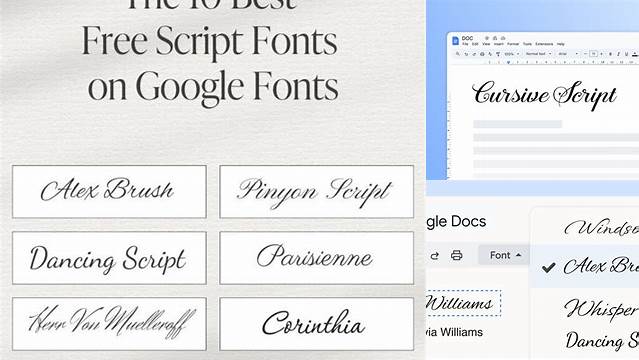
Cursive Fonts In Google Docs: The Ultimate Guide
Finding the best cursive fonts in Google Docs can be a game-changer for adding a touch of elegance, personality, or a classic handwritten feel to your documents. Whether you're working on a formal invitation, a creative writing project, or simply want to jazz up your notes, the right font can make all the difference. In this comprehensive guide, we'll dive deep into the world of Google Docs fonts, focusing on the cursive ones that stand out. We'll explore the best options, how to find and use them, and tips on choosing the perfect font for your specific needs. So, let's get started and discover the magic of cursive fonts together, shall we?
Best Cursive Fonts Google Docs: Choosing the Right Font
Choosing the best cursive fonts in Google Docs is like selecting the perfect outfit – it depends on the occasion and your personal style, doesn't it? But, what makes a cursive font “good”? A great cursive font should be readable, aesthetically pleasing, and versatile enough to fit various contexts. When selecting a cursive font, consider these factors: Readability: This is paramount. The font should be easy to read at different sizes. Some cursive fonts can be overly ornate, making them difficult to decipher. Choose fonts with clear letterforms, so your audience can easily understand the message. Aesthetics: Does the font match the tone and style of your document? A whimsical font might suit a children's story, while a more elegant script font is ideal for a wedding invitation. Versatility: Does the font have a complete set of characters and symbols? Ensure the font supports all the characters you need for your document. Weight and Style: Consider the font's weight (e.g., light, regular, bold) and style. A bold cursive font can draw attention, while a lighter one creates a more delicate feel. Experiment with different fonts to find the one that best suits your needs. Target Audience: Think about who will be reading your document. Some fonts are better suited for certain age groups or demographics. A playful font might not be appropriate for a business report. In conclusion, it's important to experiment with different cursive fonts and see how they look in your documents. After all, the best cursive font is the one that resonates with you and enhances your content. Ultimately, the perfect cursive font is the one that not only looks great but also complements the content and achieves the desired effect.
Understanding Font Properties and Terminology
To effectively navigate the world of cursive fonts, it's helpful to understand some fundamental font properties and terminology. Let's break down some key concepts: Serif vs. Sans-serif: Serif fonts (like Times New Roman) have small strokes, or “serifs,” at the ends of the letters, while sans-serif fonts (like Arial) do not. Cursive fonts often have serifs, which help letters connect and create a flowing appearance. Font Weight: This refers to the thickness of the font. Weights range from light to bold, impacting how the font appears on the page. Different weights of the same font can dramatically change the look and feel. Font Style: Font styles include italic, oblique, and regular. Italic fonts are typically slanted to the right, and cursive fonts often come in italic styles. Kerning and Tracking: Kerning is the space between individual pairs of letters, and tracking is the overall spacing between letters in a word or phrase. Adjusting these can improve readability and visual appeal. Leading (Line Spacing): This refers to the vertical distance between lines of text. Appropriate leading is crucial for readability, especially with cursive fonts, which can sometimes appear cramped. Font Families: A font family is a group of fonts that share a common design. Within a font family, you'll find various styles and weights (e.g., Arial, Arial Bold, Arial Italic). Understanding these terms will empower you to make informed decisions about the cursive fonts you choose. For instance, knowing about font weight lets you choose between a delicate or a bold look. Adjusting kerning and tracking ensures your text is easy to read. Choosing the right leading creates the perfect visual balance. With these tools, you'll confidently find the best cursive fonts in Google Docs that truly elevate your work.
Evaluating Readability and Legibility in Cursive Fonts
One of the most critical aspects when selecting the best cursive fonts in Google Docs is evaluating their readability and legibility. While cursive fonts are attractive, some can sacrifice clarity for aesthetics. Here's how to assess a font's readability and legibility: Character Clarity: Each letter should be distinct and easy to identify. Avoid fonts where similar letters (e.g., 'a' and 'o', 'l' and 'i') are easily confused. Check the font's uppercase and lowercase letters to ensure they are clearly distinguishable. Letter Connections: The connections between letters should flow naturally without being overly crowded. Avoid fonts where connections are too tight, making words difficult to read. Ensure the connections do not create unusual or distracting shapes. Font Size: Test the font at various sizes to see how it performs. Some fonts are more legible at larger sizes, while others remain clear even when small. Ensure the font is readable at the size you intend to use it. Spacing: Proper spacing between letters and words is essential for readability. The font should have a balance between the characters without being too close or too far apart. Ensure the spacing is consistent and doesn't create awkward gaps or overlaps. Context: Consider the context of your document. Is it a long-form essay or a short greeting card? The font’s readability is particularly crucial for longer texts. Select a font with good legibility, especially when used in large blocks of text. Testing: Before committing to a font, test it with a sample paragraph or phrase. Print it out to see how it looks on paper, as this can reveal readability issues not immediately apparent on-screen. Ultimately, the most readable cursive font is the one that allows your audience to effortlessly understand your message. By carefully evaluating readability and legibility, you can confidently choose the best cursive fonts in Google Docs, ensuring your documents are both beautiful and easy to read.
Exploring Popular Cursive Fonts in Google Docs
When it comes to finding the best cursive fonts in Google Docs, several options consistently rank high for their aesthetic appeal and readability. Let's explore some popular choices: Dancing Script: A widely-used and beloved font, Dancing Script offers a flowing, elegant feel, reminiscent of handwritten calligraphy. It's excellent for invitations, headings, and creative projects. Its fluid lines and slightly irregular strokes make it feel personal and inviting. Great Vibes: This font is known for its sophistication and grace, perfect for conveying a sense of elegance. Great Vibes is an excellent option for projects that require a touch of formality, such as wedding invitations or special announcements. The subtle flourishes and refined letterforms create a polished look. Kaushan Script: With a slightly bolder stroke than Dancing Script, Kaushan Script is more assertive, yet still retains a friendly and approachable style. This is a versatile option that works well in various contexts, from greeting cards to casual notes. The slight slant and rounded letterforms give it a dynamic look. Caveat: Caveat provides a modern take on cursive fonts, offering a more casual and contemporary feel. It is great for projects where you want a handwritten style that is less formal. This font is well-suited for blog titles, quotes, and informal communication. Pacifico: Inspired by the 1950s surf culture, Pacifico has a playful and relaxed style. It is a fun choice for adding a touch of personality to your projects. Its bold and whimsical curves make it stand out, ideal for eye-catching headlines and creative designs. These popular cursive fonts offer a variety of styles to meet different needs. Remember to consider your project's context and target audience when choosing the font that best fits your needs. Testing the fonts in your documents is key to ensuring they perform well and bring your ideas to life. Ultimately, selecting the right font is key to making your work shine.
Best Cursive Fonts Google Docs: Matching Fonts with Project Needs
Choosing the best cursive fonts in Google Docs requires matching the font to the project's specific needs. Here's how to choose the right font for various projects: Formal Invitations: For wedding invitations, galas, or any event requiring elegance, choose a sophisticated, classic cursive font. Great Vibes or similar fonts with flowing lines and refined letterforms are excellent choices. Ensure readability and select a font weight that exudes formality. Creative Writing: Cursive fonts add a personal touch to creative writing. For novels, poems, or handwritten letters, opt for fonts that enhance the emotional tone of your writing. Dancing Script or Kaushan Script work well for creating a natural, handwritten feel. Consider fonts that are slightly irregular to give an authentic look. Children's Projects: Playful cursive fonts can make children's projects engaging. Choose fonts with friendly, rounded letterforms that are easy for children to read and enjoyable to look at. Pacifico or similar fonts are good for titles, captions, or creative artwork. The key is to pick fonts that are accessible and fun. Business Communications: While cursive fonts are usually not ideal for business documents, they can be effective for specific purposes like logos or branding. Choose a font that reflects your brand's personality and maintains professionalism. For formal communications, avoid overly stylized fonts and prioritize clarity and legibility. Personal Notes and Journals: Cursive fonts can make personal notes and journals feel more intimate. Choose fonts that are pleasing to you and easy to read. Opt for fonts that are legible and create a relaxing environment. Personal preference plays a huge role in this choice, so experiment to find the perfect fit. Blog Titles and Headings: Cursive fonts make headlines stand out. Select fonts that capture readers' attention. Caveat and other bold and modern cursive fonts work well for blog titles. Ensure the font is legible at a variety of sizes to make your headings pop. By matching your font choices to your project, you ensure a cohesive and effective final product. Remember that each project is unique and requires careful consideration of both aesthetics and functionality to choose the best cursive fonts in Google Docs.
Choosing Fonts for Different Writing Styles and Purposes
The best cursive fonts in Google Docs can enhance the style and purpose of your writing. Let's explore this further: Formal Writing: For formal documents like invitations, official letters, or certificates, choose elegant, traditional cursive fonts. Fonts like Great Vibes or similar script fonts are excellent for conveying professionalism and sophistication. Make sure the font is very clear and easy to read, as this kind of writing often requires a high level of clarity. Creative Writing: Cursive fonts can add a unique flair to creative writing projects. Use flowing and stylized fonts like Dancing Script or Kaushan Script to give a natural and handwritten feel. Fonts with slight variations in the stroke or connections create a more organic and personalized effect. Test the fonts with your content to ensure they don’t distract from the writing. Informal Writing: For informal writings like notes, social media posts, and casual correspondence, a more casual and modern cursive font can be used. Fonts like Caveat or similar contemporary script fonts give a friendly and approachable look. Bold or whimsical fonts can add a touch of playfulness. Ensure the font matches the tone of your communication. Business Correspondence: While cursive fonts can be a little tricky in business correspondence, there are certain exceptions. A cursive font can be used for logos, letterheads, or signatures. Avoid using cursive fonts in long text blocks. Always prioritize clarity and professionalism. Choose a font that aligns with the company's brand identity. Educational Materials: Cursive fonts are often used in educational material, especially for teaching handwriting. Choose fonts that mimic handwriting styles used in classrooms. Make sure the font is easy for students to read and emulate. Test the font with students of different ages and abilities to ensure its clarity. By selecting the right font for your writing style and project purpose, you can enhance the impact and effectiveness of your work, thereby, finding the best cursive fonts in Google Docs for your needs.
Avoiding Common Mistakes with Cursive Fonts
Using cursive fonts can be tricky, and avoiding common mistakes is important for creating effective documents. Finding the best cursive fonts in Google Docs requires knowing what to avoid: Overuse of Cursive: One of the most common mistakes is overusing cursive fonts. Limit the use of cursive fonts to headings, titles, and decorative elements. If you use cursive for body text, it can be difficult to read and fatigue the eyes. Balance the use of cursive with more readable fonts. Poor Readability: Choose fonts with good legibility. Some cursive fonts are overly ornate and difficult to read. Test the font at various sizes. Ensure the spacing between characters and lines is sufficient. Prioritize readability to ensure that your audience can understand the message. Incorrect Pairing: Avoid pairing cursive fonts with other fonts that are too similar. The contrast between the fonts should be clear. Pair cursive fonts with simple fonts to maintain a visual balance. Choosing good pairings can make the design look professional. Ignoring Font Size: Make sure that the font size is appropriate for the context. Avoid using small font sizes, especially with cursive fonts, because they can be difficult to read. Use larger fonts for headings and titles. Vary the font sizes to create a visual hierarchy. Lack of Contrast: Make sure that there is a good contrast between the font color and the background. Dark fonts look good on light backgrounds, and light fonts look good on dark backgrounds. Ensure there is enough contrast for the text to be legible. Test your designs with various color combinations. By avoiding these common mistakes, you can create a better design. Using the best cursive fonts in Google Docs effectively, your designs will be effective and visually appealing.